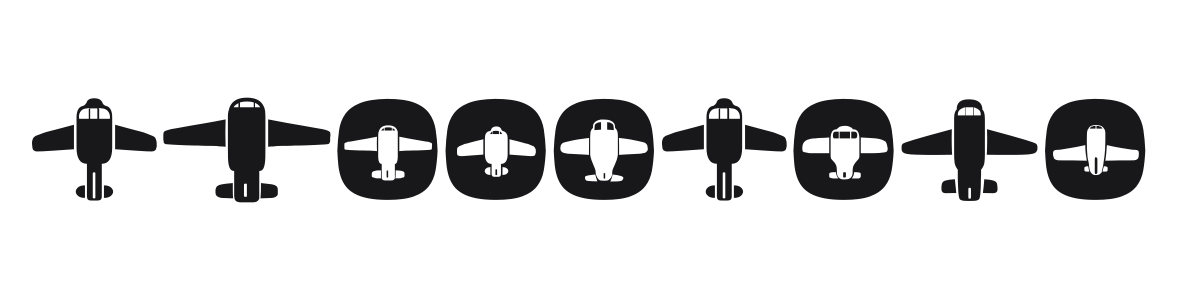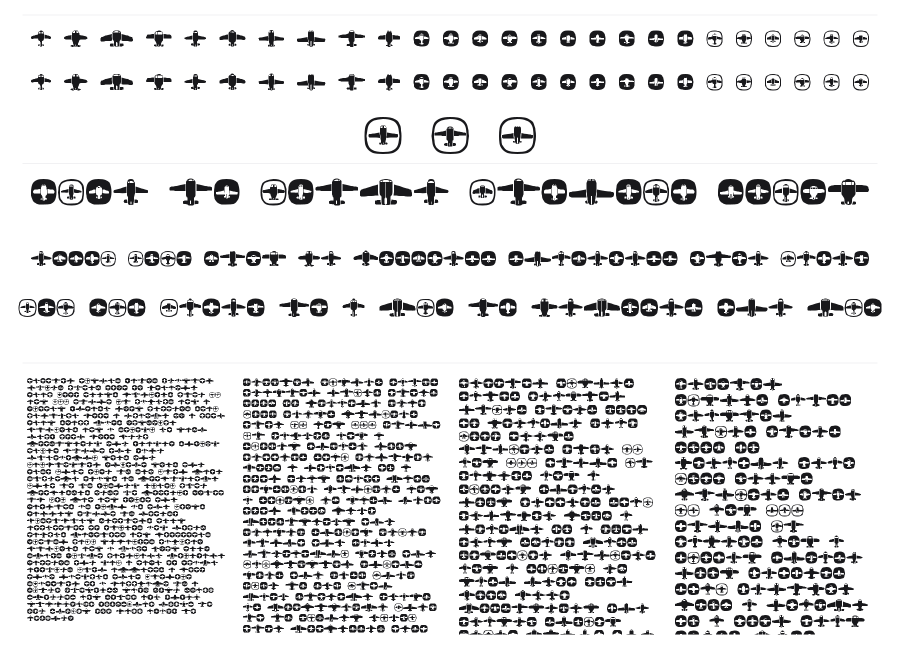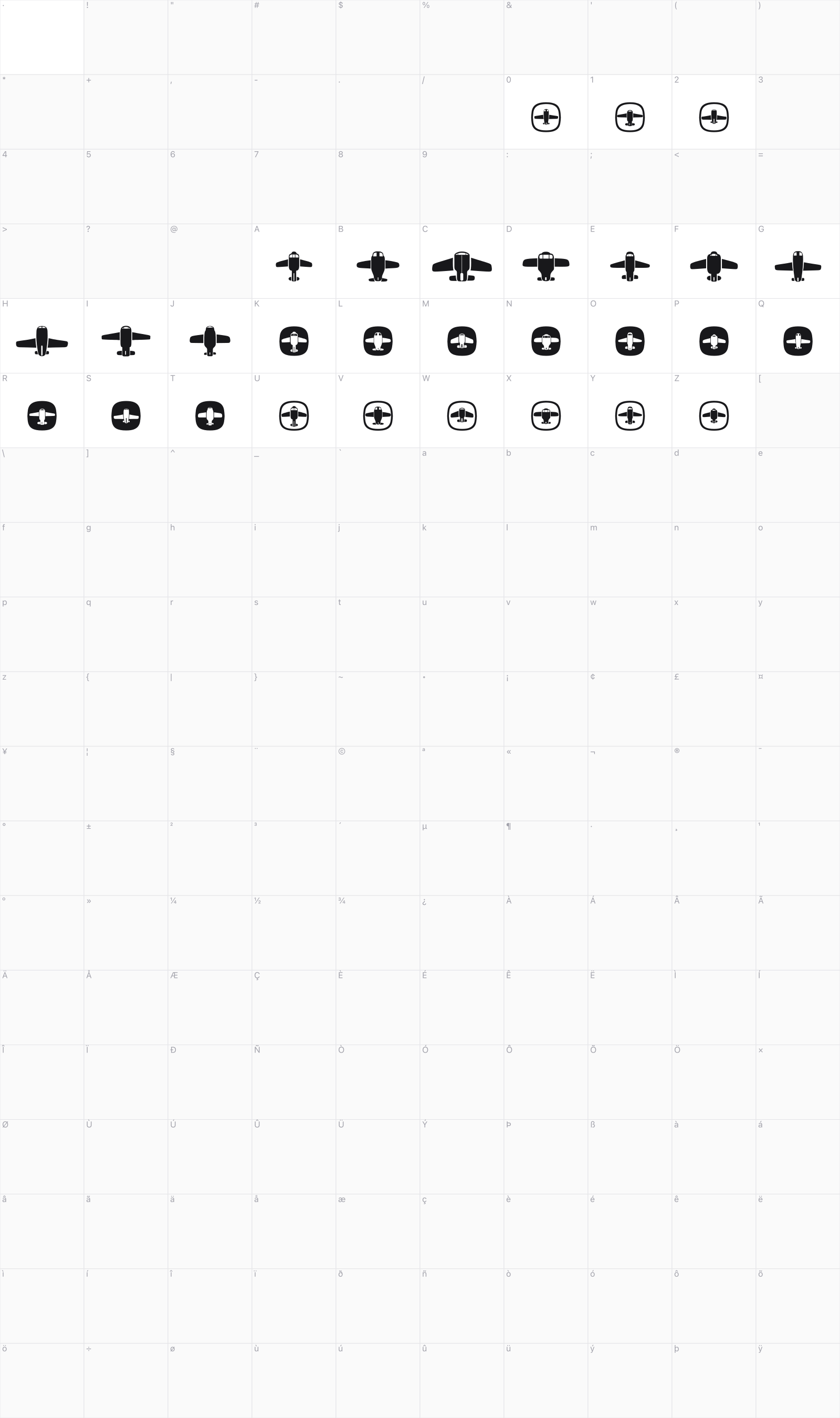
Airplanes
Airplanes is a dingbat font built entirely from front-facing airplane silhouettes in a variety of icon styles. Each glyph presents a small propeller plane, some as bare silhouettes and others framed in rounded squares or circles, giving designers a ready-made set of aviation icons. The bold, clean forms work well in packaging, children's materials, and travel-themed graphics.